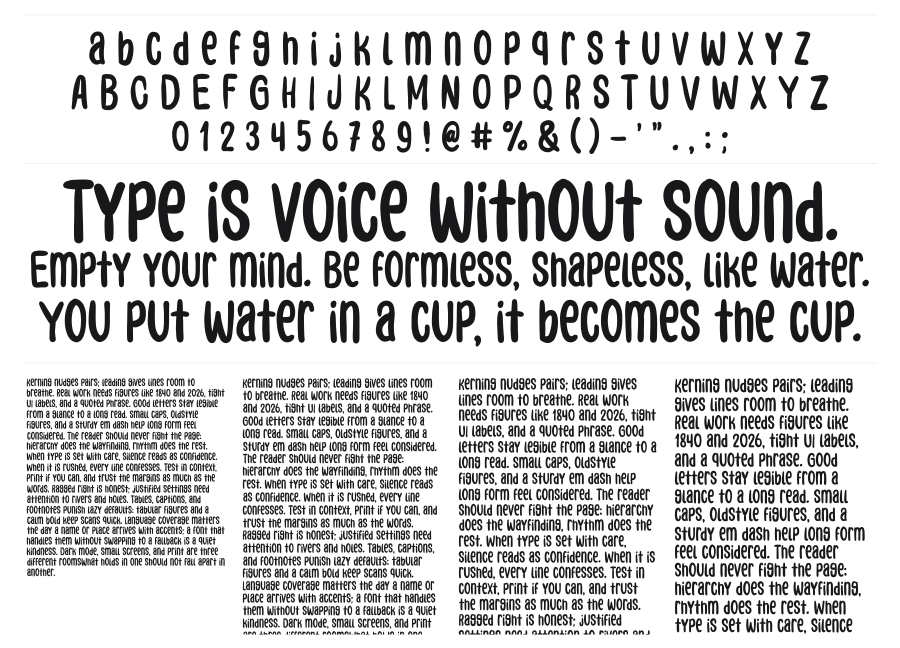
Chopsticks
Chopsticks is a bold, rounded display font with chunky, hand-drawn energy and a loose comic sensibility. Irregular curves and softly tapered terminals give each character a lively, informal feel that stands apart from polished geometric rounds. It works well for food branding, children's content, and any headline that needs a sense of humor.